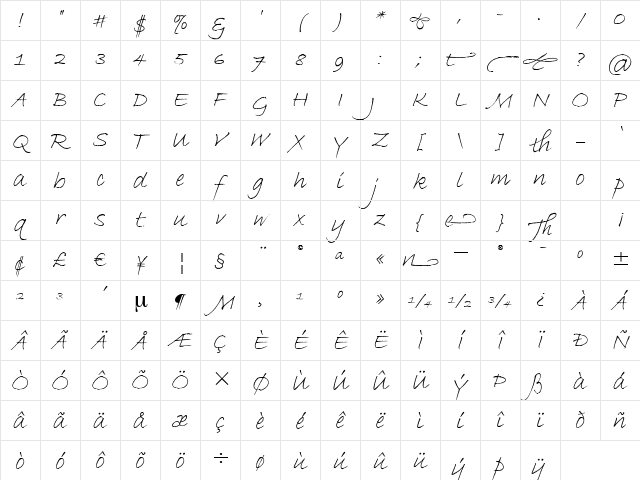
Bradley Hand ITC TT Italic
Foundry: International Typeface Corporation
Designer: Richard Bradley
Complete Bradley Hand ITC TT Italic glyph index. Displaying only characters natively supported by Bradley Hand ITC TT Italic font.
Design Context for Bradley Hand ITC TT
Bradley Hand ITC TT flows with the natural rhythm of handwritten lettering, making it ideal for designs that call for warmth and personal expression.
Font Pairing: Combine Bradley Hand ITC TT with a simple geometric sans for maximum contrast - the tension between flowing curves and clean structure is a classic typographic pairing.
Pro Tip: Use Bradley Hand ITC TT for short runs of text - names, titles, or taglines. Extended body copy in script faces tires the eye quickly.